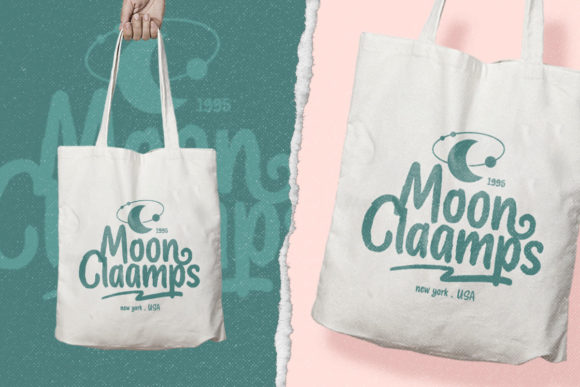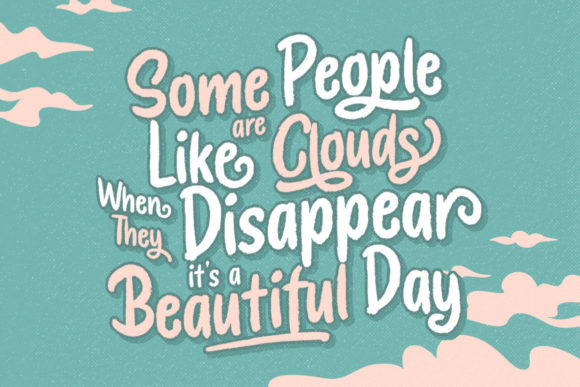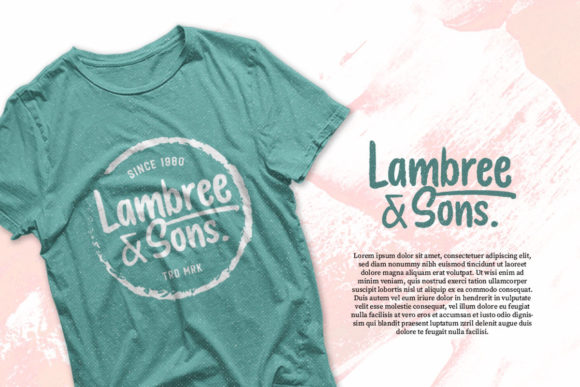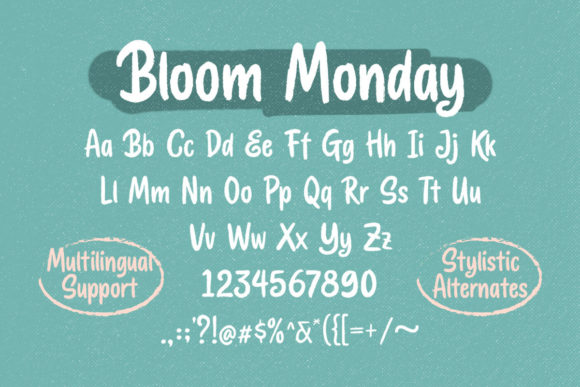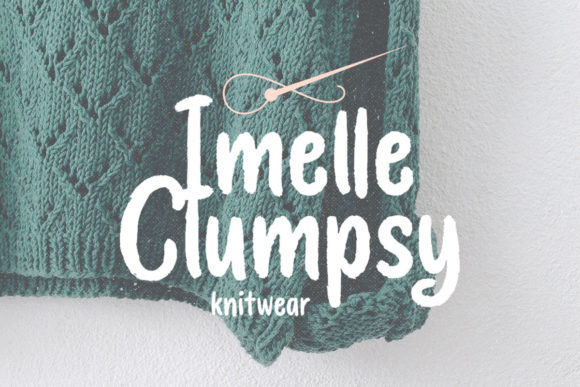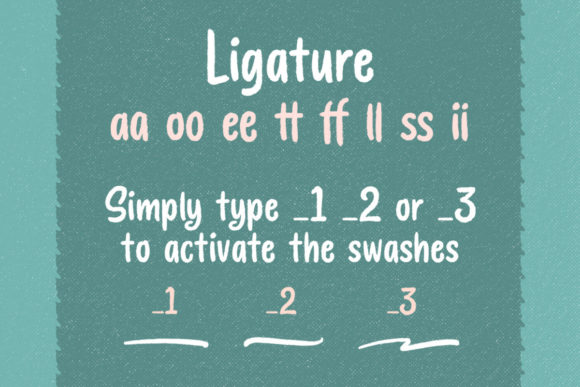
Bloom Monday Font: Elevate Your Designs with Elegance and Class
In the world of typography, a font can make or break the aesthetic of a design. For those seeking a lovely and delicate script font that exudes elegance and class, look no further than Bloom Monday. This beautiful font was particularly crafted for designers and crafters who need a refreshing and sophisticated look to enhance their creations.
The Beauty of Bloom Monday
Bloom Monday is a script font that embodies the essence of elegance and refinement. Its delicate strokes and curves create a sense of fluidity and movement, making it perfect for designs that require a touch of sophistication. The font’s unique charm lies in its ability to add a level of luxury and glamour to any project, making it ideal for designers and crafters who want to create something truly special.
Key Features of Bloom Monday
- Delicate Script Font: Bloom Monday features a beautiful, hand-crafted script that is both elegant and refined.
- Elegant and Classy: The font’s sophisticated design makes it perfect for projects that require a touch of luxury and glamour.
- Refreshing Look: Bloom Monday’s unique design elements ensure that your designs stand out from the crowd and leave a lasting impression.
- Easy to Read: Despite its delicate nature, Bloom Monday is surprisingly easy to read, making it perfect for body text and headings.
- Versatile: This font can be used for a wide range of projects, from wedding invitations and branding materials to packaging and digital designs.
Uses for Bloom Monday
Bloom Monday’s versatility makes it an excellent choice for various design projects. Here are a few ideas to get you started:
- Wedding Invitations: Add a touch of elegance and sophistication to your wedding invitations and stationery.
- Branding Materials: Use Bloom Monday to create stunning logos, business cards, and letterheads that reflect your brand’s personality.
- Packaging Design: Elevate your product packaging with Bloom Monday’s beautiful script font.
- Digital Designs: Use Bloom Monday in your digital designs, such as social media graphics, blog headers, and email newsletters.
Tips for Using Bloom Monday
To get the most out of Bloom Monday, here are a few tips to keep in mind:
- Pair with Bold Fonts: Combine Bloom Monday with bold, sans-serif fonts to create a striking contrast.
- Use for Headings: Bloom Monday is perfect for headings and titles, but can also be used for body text in smaller sizes.
- Experiment with Colors: Try pairing Bloom Monday with different colors to create unique and eye-catching designs.
Bloom Monday is a stunning script font that is sure to elevate your designs with its elegance and class. Whether you’re a designer or crafter, this font is perfect for anyone looking to add a touch of sophistication and luxury to their projects. With its delicate strokes, curves, and unique charm, Bloom Monday is sure to become a favorite in your font collection.